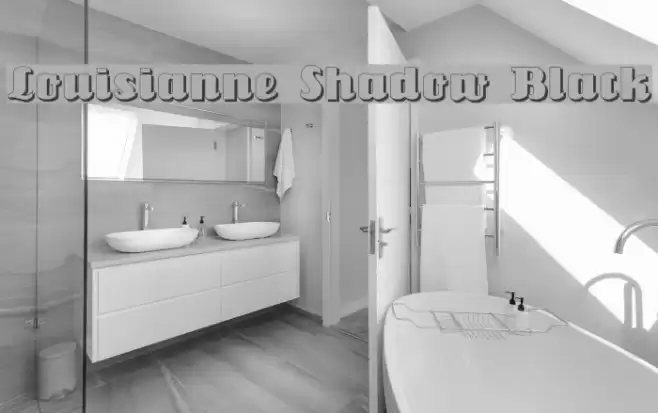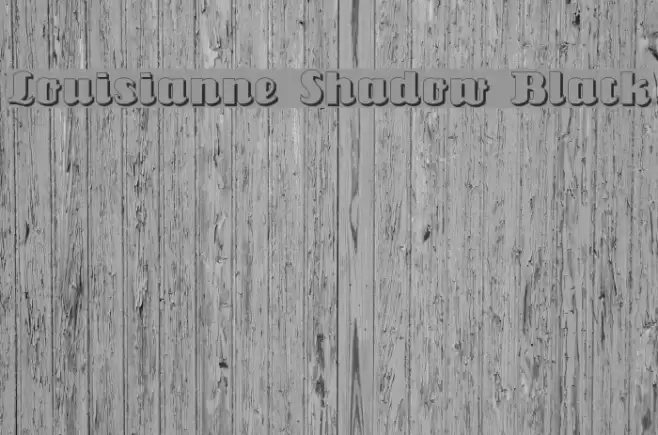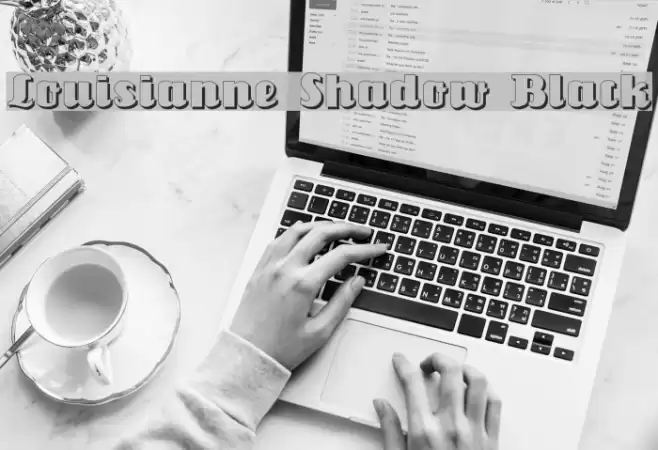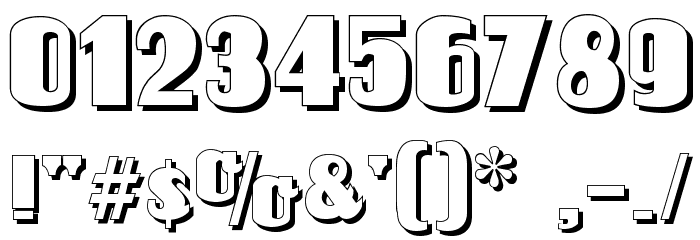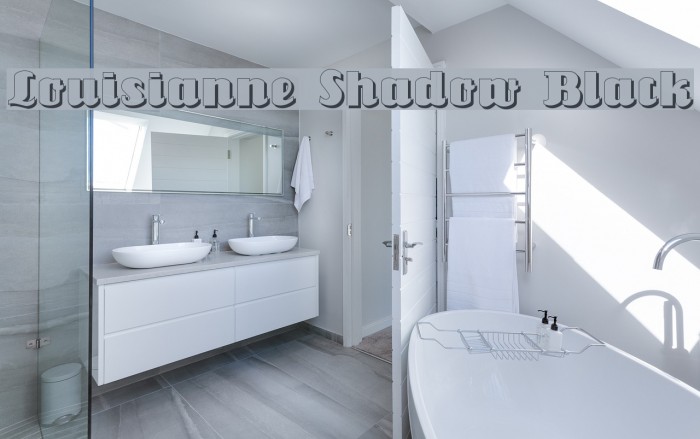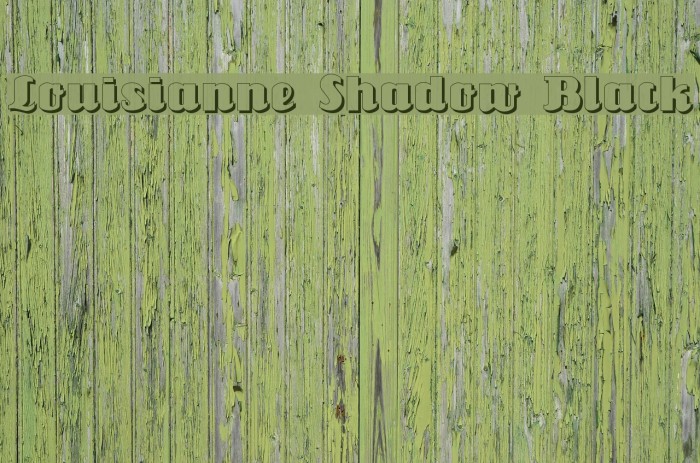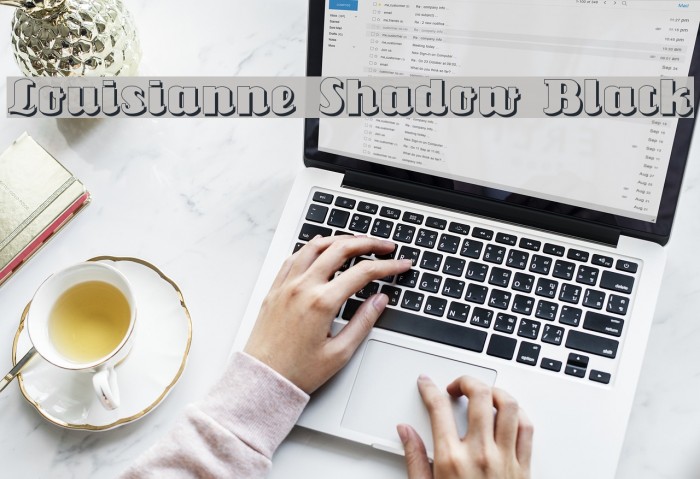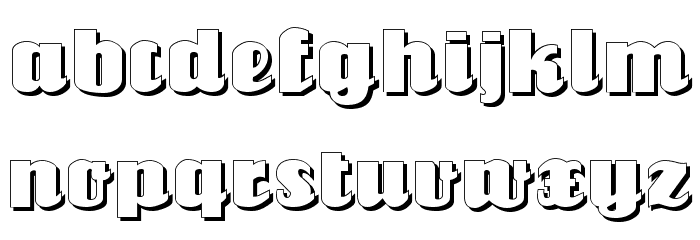
Louisianne Shadow Black Font
Louisianne Shadow Black Description
This font features a bold and striking design with a shadow effect that adds depth and dimension to each character. The uppercase and lowercase letters are designed with a strong presence, making them ideal for attention-grabbing headlines. The numbers and special characters are equally bold, maintaining consistency across the entire typeface. The shadow effect gives a three-dimensional appearance, enhancing the visual impact. This font is perfect for projects that require a dramatic and eye-catching style.
A bold, shadowed font with a strong, three-dimensional appearance from Uncategorized fonts.
- Proposed Projects: Ideal for posters, logos, headlines, and any design requiring a bold statement.